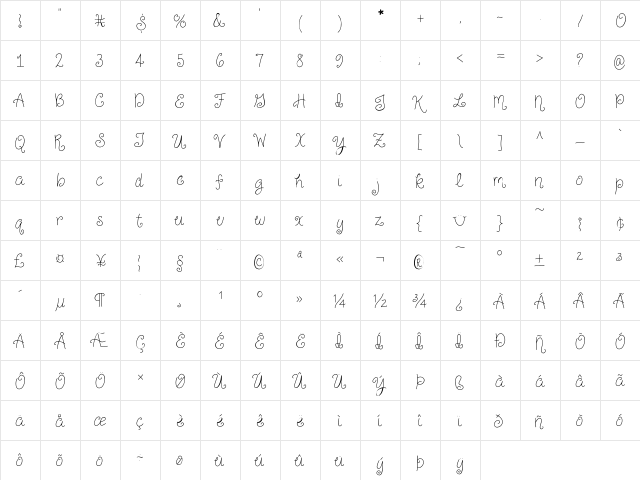
JustForGiggles Medium
| Designer | Vanessa Bays |
Design Context for JustForGiggles Typeface
JustForGiggles is a composed and adaptable typeface that performs quietly and consistently across a wide range of design contexts.